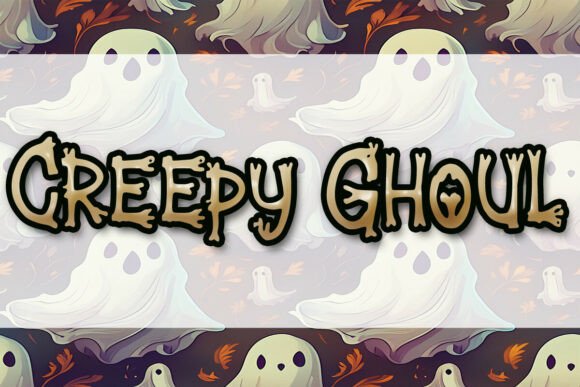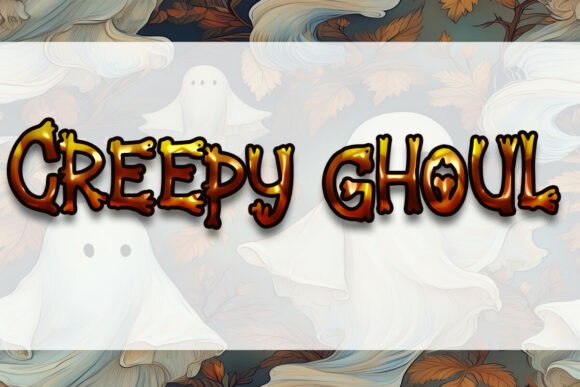
Unleash the Spookiness: Introducing the Creepy Ghoul Font
Are you ready to add a dash of spookiness to your designs? Look no further than the Creepy Ghoul Font, a thematic and highly stylized display font that’s perfect for Halloween, horror, or playful spooky designs. This chunky, rounded font is sure to make your projects stand out with its dramatic, melted or metallic effect and distinct outline that gives it a cartoonish, unsettling vibe.
What Makes Creepy Ghoul Font So Unique?
The Creepy Ghoul Font is a one-of-a-kind display font that boasts a range of characteristics that make it perfect for horror-themed media, party invitations, custom apparel, and any project that needs an eye-catching, unique, and darkly whimsical title. Here are just a few features that set it apart:
- Chunky, Rounded Letterforms: The Creepy Ghoul Font features thick, rounded letterforms that give it a playful, yet spooky feel.
- Dramatic, Melted or Metallic Effect: The font’s dramatic effect gives it a melted or metallic look that’s sure to grab attention.
- Distinct Outline: The font’s distinct outline makes it pop out in a cartoonish, unsettling way that’s perfect for horror-themed designs.
Perfect for a Range of Projects
The Creepy Ghoul Font is an incredibly versatile font that can be used for a wide range of projects, including:
- Halloween Party Invitations: Create spooky and fun invitations that will set the tone for your Halloween party.
- Horror-Themed Media: Use the Creepy Ghoul Font to add a touch of horror to your movies, TV shows, or video games.
- Custom Apparel: Design spooky t-shirts, hoodies, or hats that will make your friends and family love the holiday season even more.
- Darkly Whimsical Titles: Add a touch of dark whimsy to your projects with the Creepy Ghoul Font’s unique and eye-catching style.
Why Designers and Crafters Love the Creepy Ghoul Font
Designers and crafters alike will love the Creepy Ghoul Font for its unique and versatile style. Here are just a few reasons why:
- Easily Readable: Despite its dramatic effect, the Creepy Ghoul Font is surprisingly easy to read, making it perfect for titles, headings, and short paragraphs.
- Scalable: The font’s chunky design makes it scalable, so you can use it for a range of projects, from small stickers to large billboards.
- Customizable: The Creepy Ghoul Font can be customized to fit your project’s specific needs, so you can adjust the color, size, and style to fit your design.
Tips and Tricks for Using the Creepy Ghoul Font
Here are a few tips and tricks to help you get the most out of the Creepy Ghoul Font:
- Pair it with Other Fonts: Combine the Creepy Ghoul Font with other fonts to create a unique and eye-catching design.
- Experiment with Colors: Try out different colors to find the perfect combination that matches your project’s theme.
- Add Effects: Add effects, such as shadows or textures, to give your design an extra boost of spookiness.